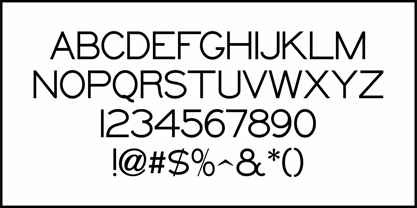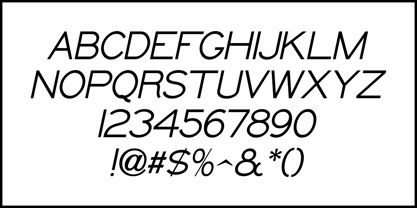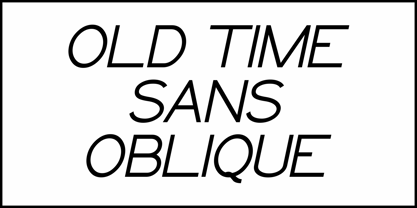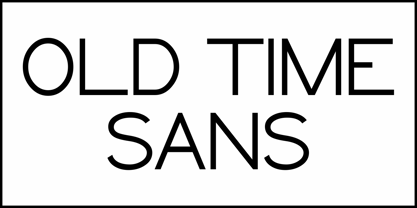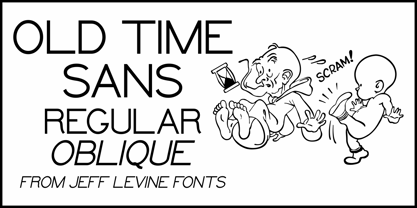
Old Time Sans JNL
by Jeff Levine
A thin sans serif design found in the 1902 book "Lettering Plates" by Charles L. Adams inspired Old Time Sans JNL, which is avalable in both regular and oblique versions. This particular type style is a carryover from the Victorian era 'grotesks' (which sans serif designs were often called). Early type specimen books from the major foundries often carried similar designs.